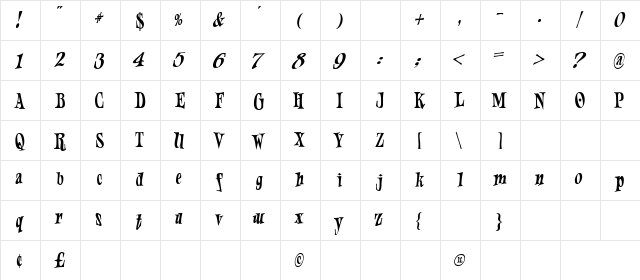
jester normal Regular
Design Context for jester normal Typeface
jester normal is a composed and adaptable typeface that performs quietly and consistently across a wide range of design contexts.